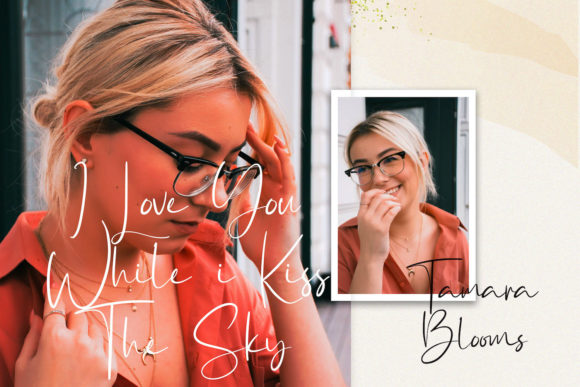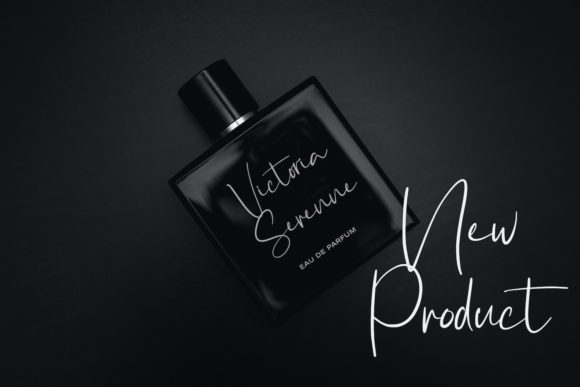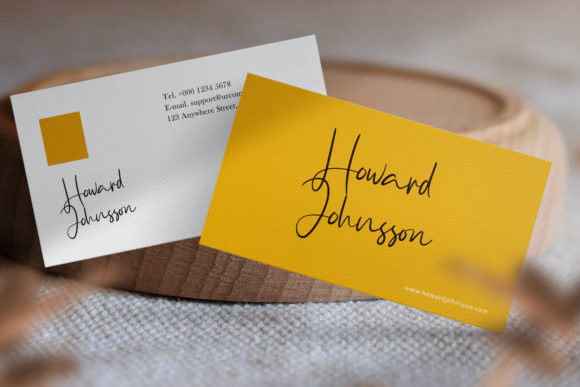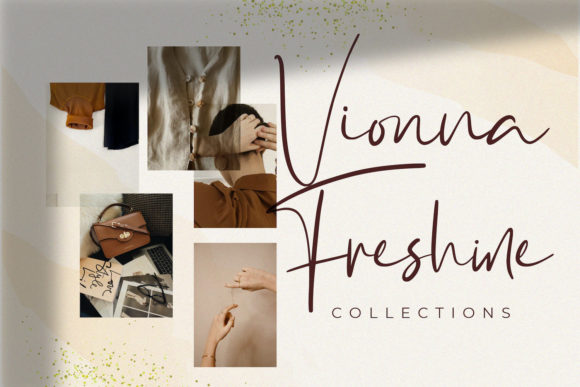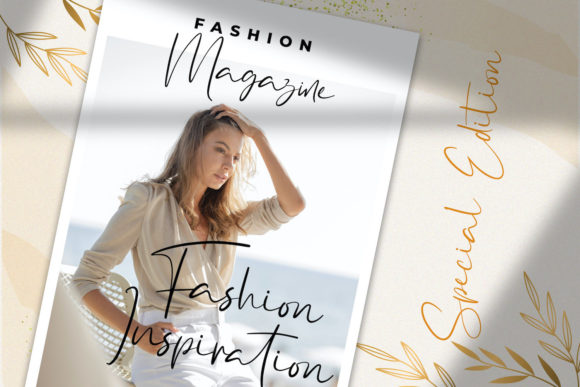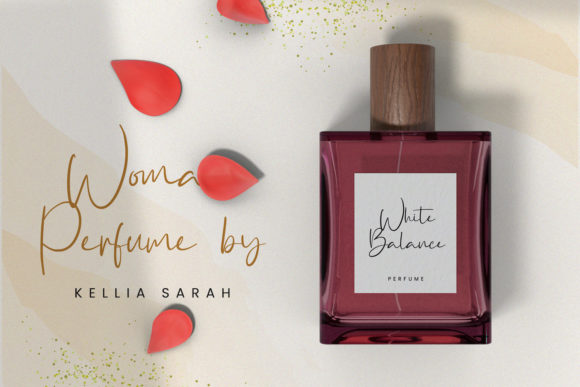
Unlocking the Perfect Script: Discover the Allure of Fathony Font
Have you ever stared at a blank page, eager to bring a design to life, only to be overwhelmed by the endless options of fonts available? For designers, finding the perfect font can be a daunting task, but what if we told you there’s a solution that can elevate your creations to new heights?
Meet Fathony Font, a dainty, thin, and refined script font that exudes elegance and sophistication. Designed to make a lasting impression, Fathony Font is perfect for logos, branding, invitations, stationery, wedding designs, social media posts, and much more. Its versatility and timeless appeal make it a valuable addition to any designer’s toolkit, offering endless possibilities for creativity and self-expression.
Fathony Font Key Features
- Unique Characteristics: Fathony Font features a modern and elegant design, with a unique blend of Indonesian and international typography, making it a great choice for creating visually appealing designs.
- Language Support: Fathony Font supports multiple languages, including Indonesian, English, and other languages that use the Latin alphabet, making it a versatile font for global design applications.
- Font Weight: Fathony Font is available in multiple font weights, ranging from Light to Bold, allowing designers to achieve the desired level of emphasis and visual hierarchy in their designs.
Fathony Font Review
I recently had the chance to work with the Fathony Font, and I must say it’s a mixed bag. Here are my thoughts:
- Unique aesthetic: The Fathony Font has a distinctive look that’s sure to grab attention. Its blend of modern and traditional elements makes it perfect for brands that want to stand out.
- Good legibility: Despite its unique design, the font is still easy to read, even at smaller sizes. This makes it a great choice for body text and other content where readability is key.
- High-resolution support: The font looks great at high resolutions, making it perfect for use in print materials and digital displays.
- Limited font weights: The Fathony Font only comes in a few weights, which can limit its versatility. If you need a lot of font weights to match your design requirements, this font may not be the best choice.
- Not ideal for long blocks of text: The font’s unique design can make it difficult to read long blocks of text. This is especially true for body text where readability is crucial.
- May not be suitable for all audiences: The font’s distinctive look may not appeal to all audiences. Some people may find it too flashy or over-the-top, while others may love it.
Overall, the Fathony Font is a solid choice for designers who want to add some personality to their designs. However, it may not be the best choice for every project. With some careful consideration of its limitations, you can use this font to create some truly unique and eye-catching designs.
Tips for Getting the Most Out of Fathony Font
Here are some tips to get the most out of Fathony Font:
– Experiment with different font sizes and styles to achieve the desired look.
– Use Fathony Font in combination with other fonts to create a unique visual identity.
– Adjust the font’s opacity and layering to achieve a specific design effect.
Fathony Font is commonly used in:
– Packaging design
– Editorial and publishing design
– Digital signage and displays
Alternatives to Fathony Font
Lato Font is a sans-serif font designed by Łukasz Dziedzic. It is a great alternative to Fathony Font for designers who want a clean and modern look. Lato is more versatile and can be used for both body text and headings.
What is the character set of Fathony Font?
Fathony Font includes a comprehensive character set, covering Latin, Cyrillic, and Greek alphabets, as well as punctuation and symbols. It also includes a range of language-specific characters, making it suitable for use in multiple languages.